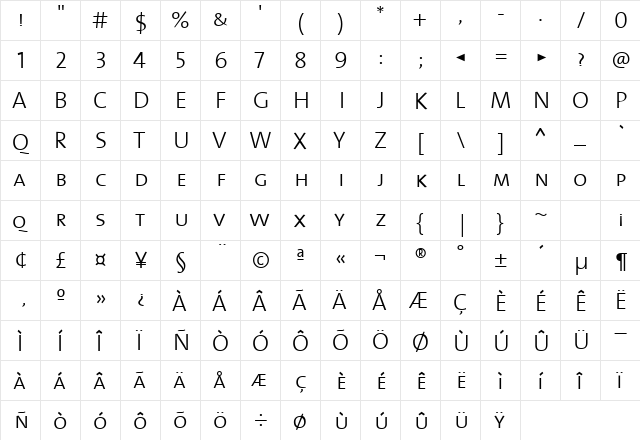
TheSansLight-Caps Regular
Design Context for TheSansLight-Caps Typeface
TheSansLight-Caps offers clean, dependable letterforms without strong stylistic allegiance, making it a practical choice for designers who need flexibility. Its slender proportions lend an understated elegance to any composition.
Pro Tip: Use TheSansLight-Caps in both headline and body roles to test its range before committing to a single application.